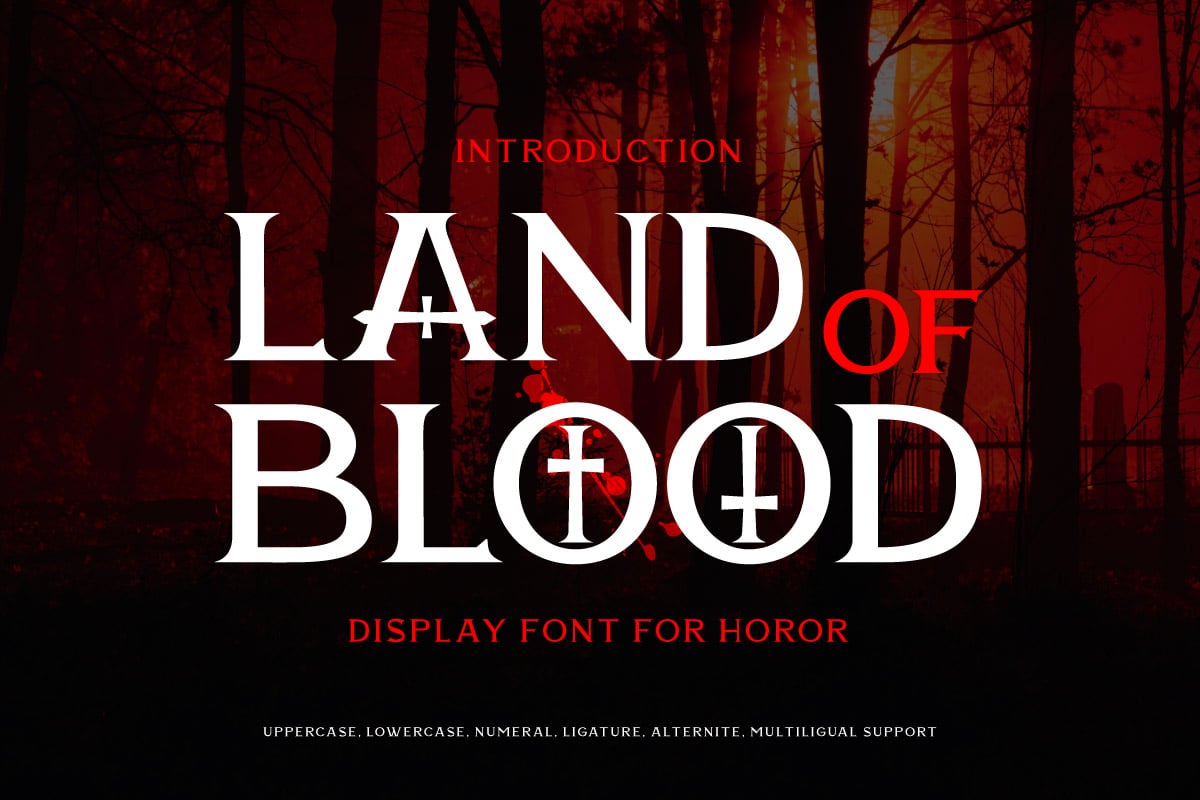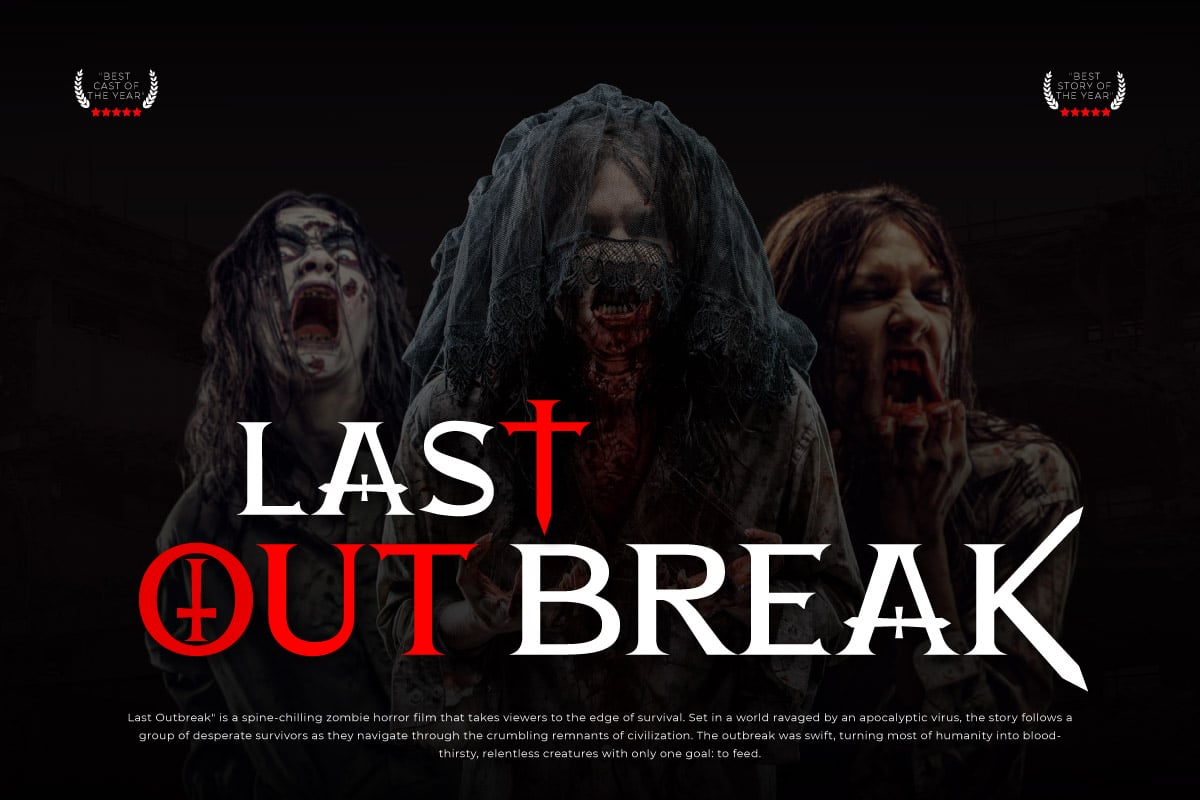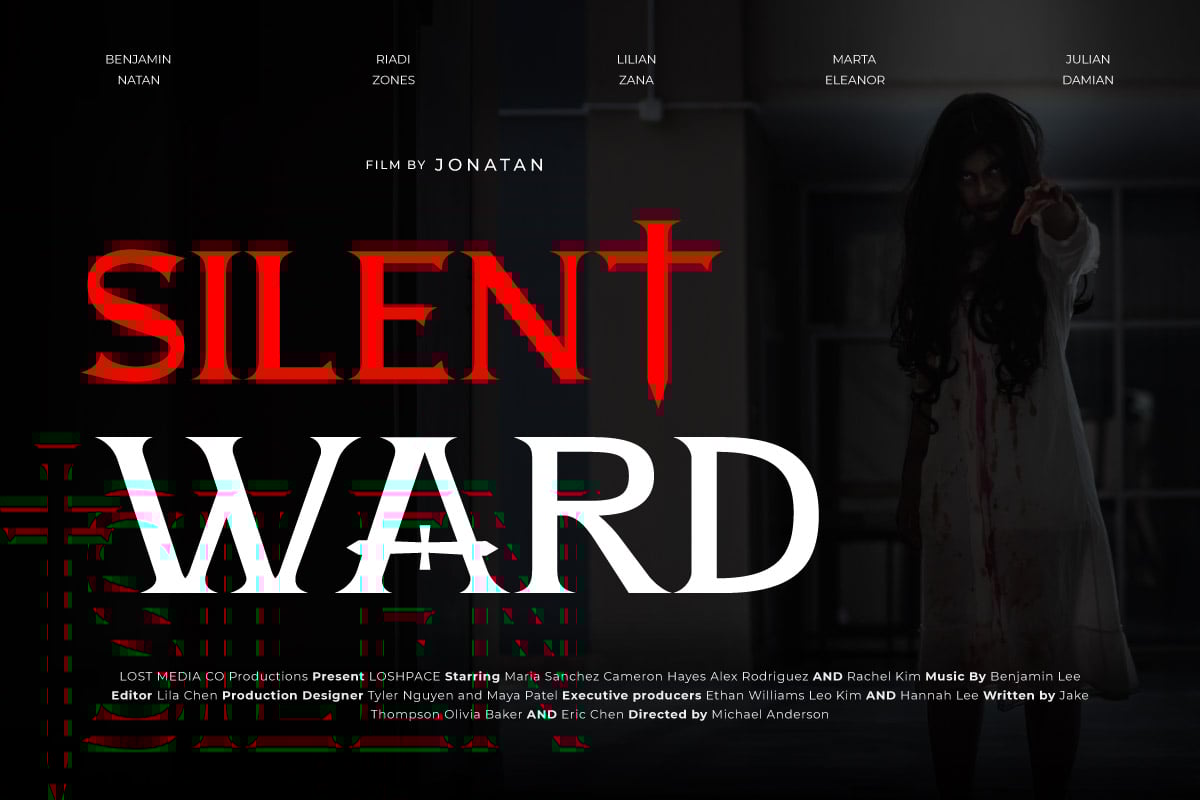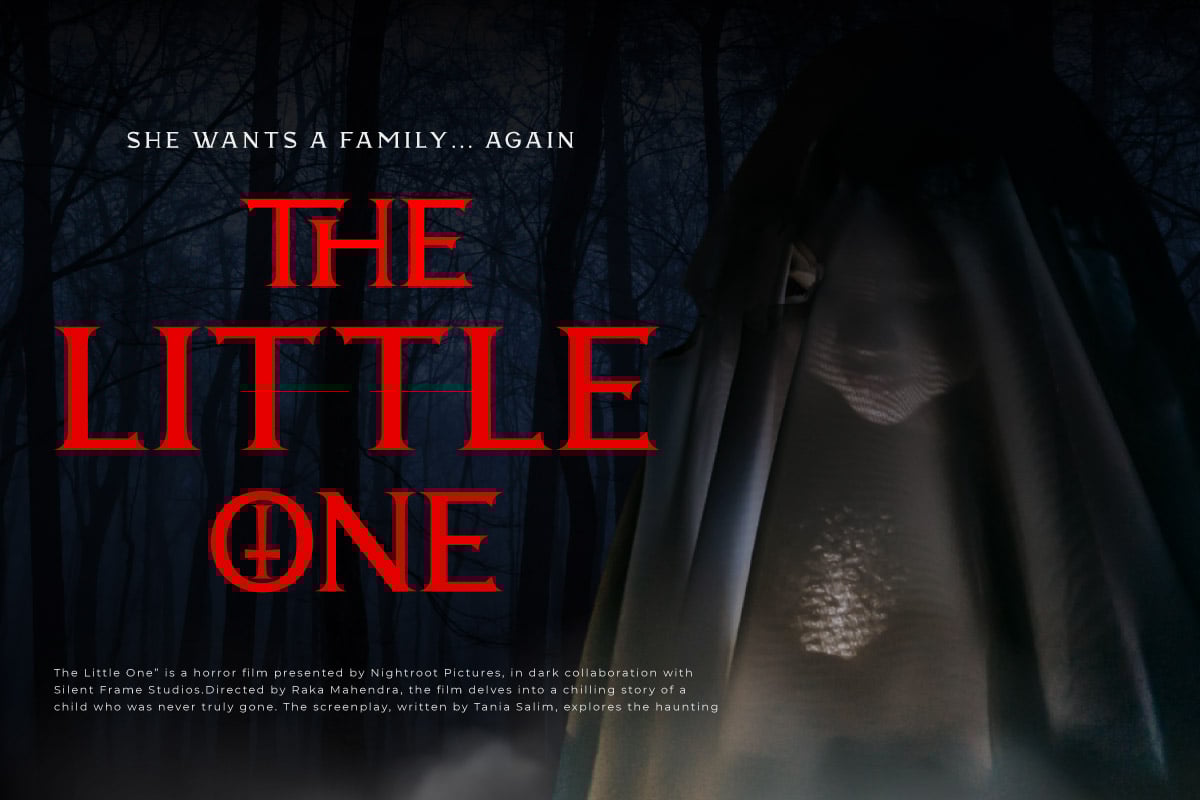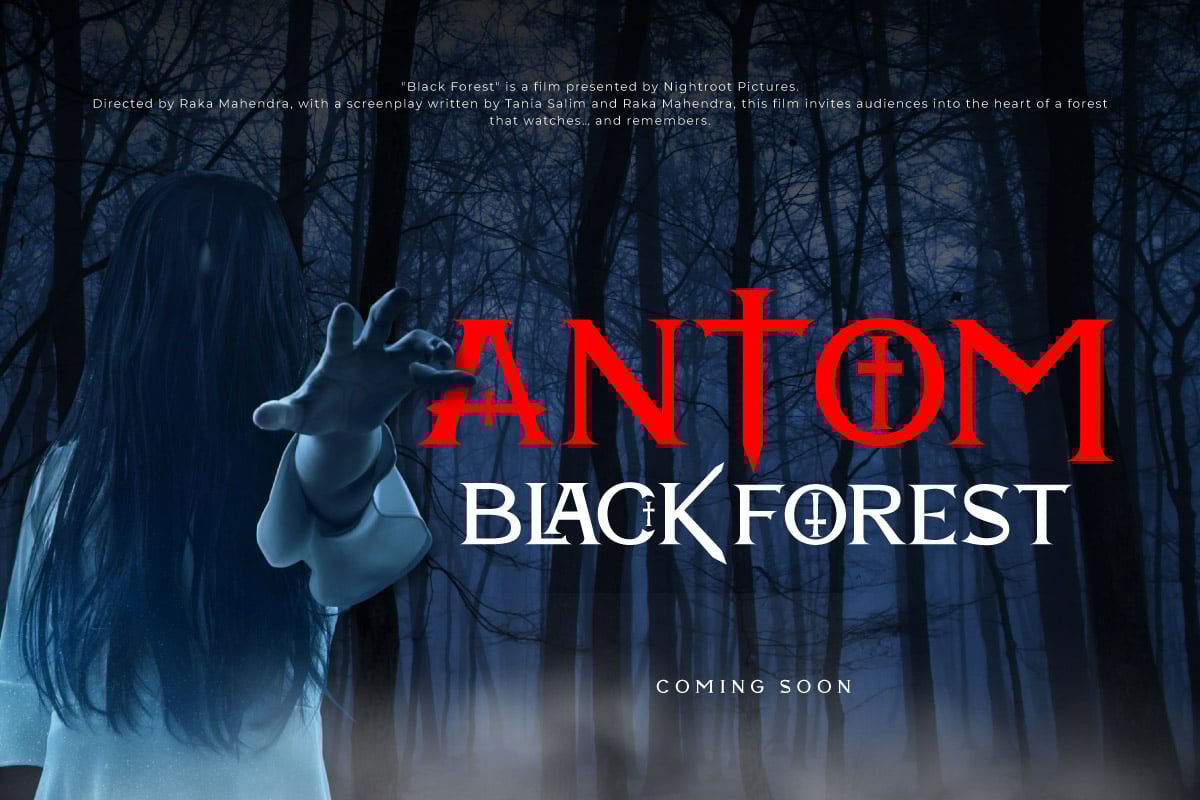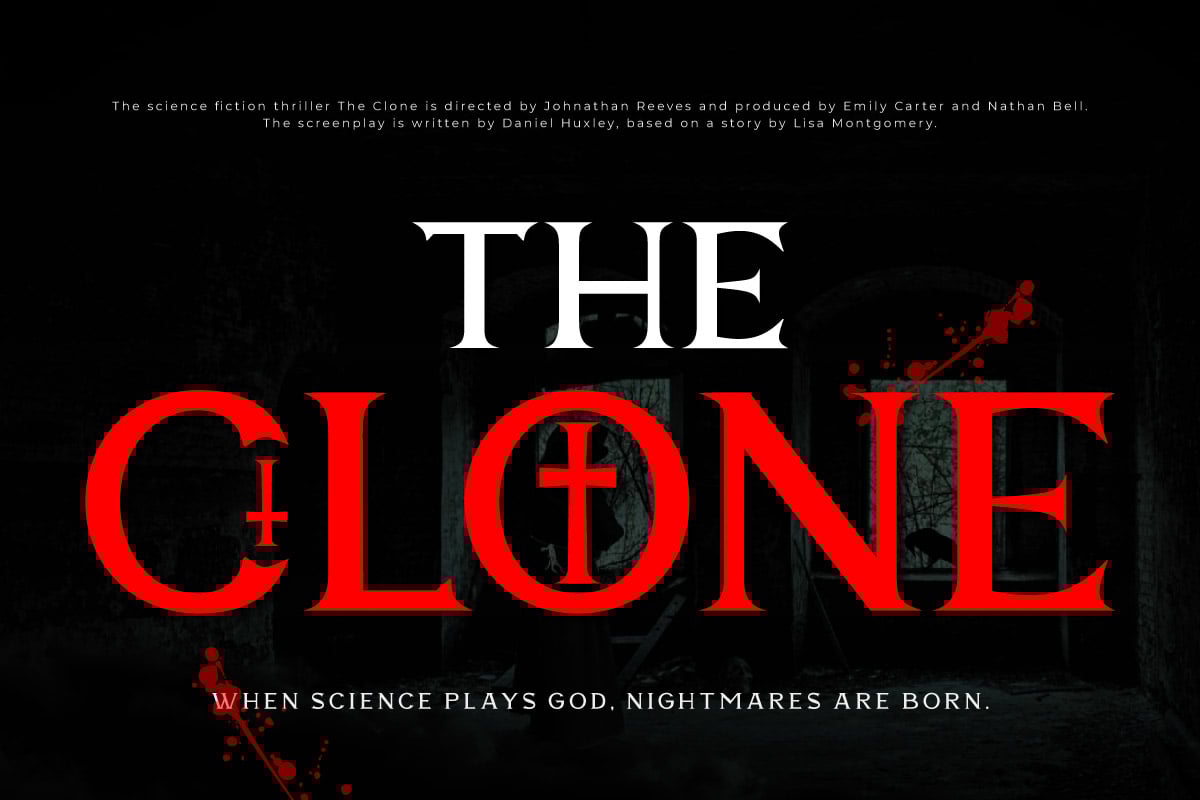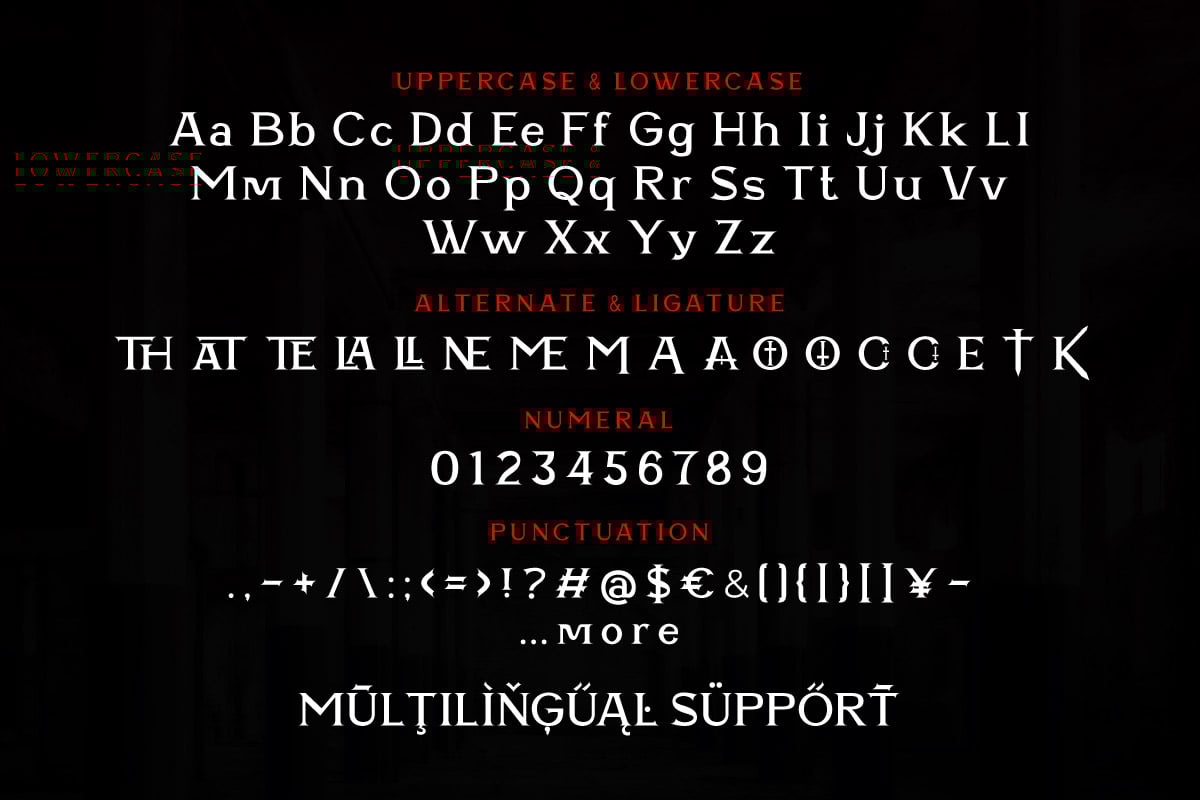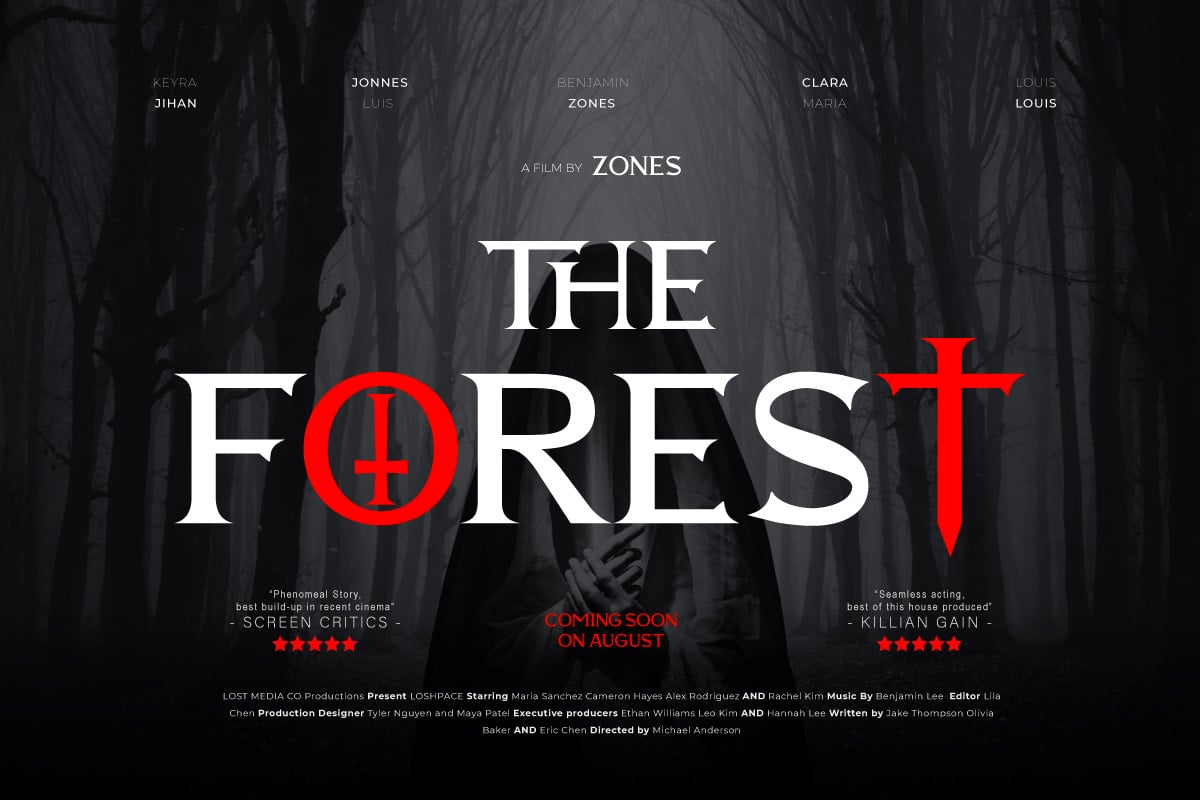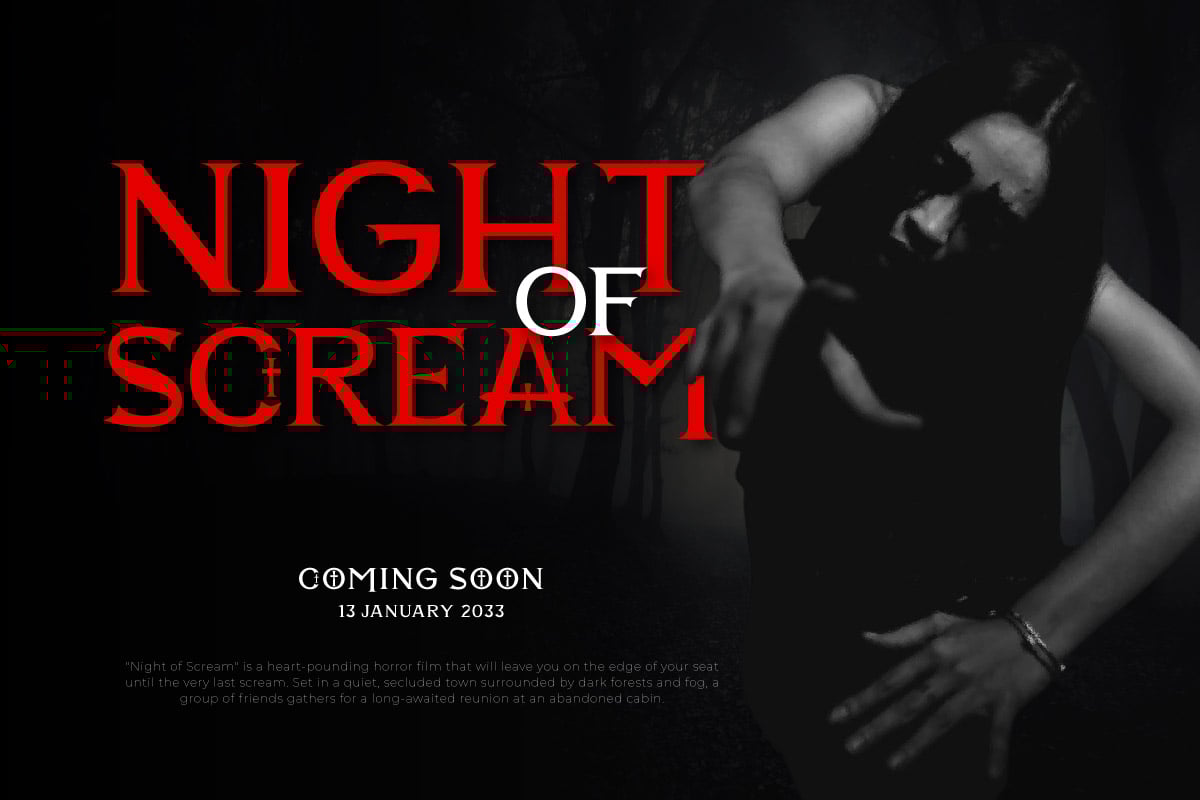
Land Of Blood – Horror Movie Font
Land Of Blood is a horror movie display font drenched in fear and dripping with dread. Each letter is crafted to resemble splattered ink and gory brush strokes—making it the perfect typeface for terrifying titles, haunted posters, thriller book covers, and any creative project that demands a blood-chilling aesthetic.
This font evokes the feeling of a classic horror scene—foggy nights, eerie footsteps, and the sight of red trailing down walls. Its jagged, uneven lines give a raw, chaotic energy, perfect for adding high-intensity visual drama to your designs. Whether you’re creating a vampire-themed event, a ghostly tale, or a slasher movie, Land Of Blood will make your title scream for attention.
Use Land Of Blood to channel the horror genre in its most intense form—bold, bloody, and unforgettable.